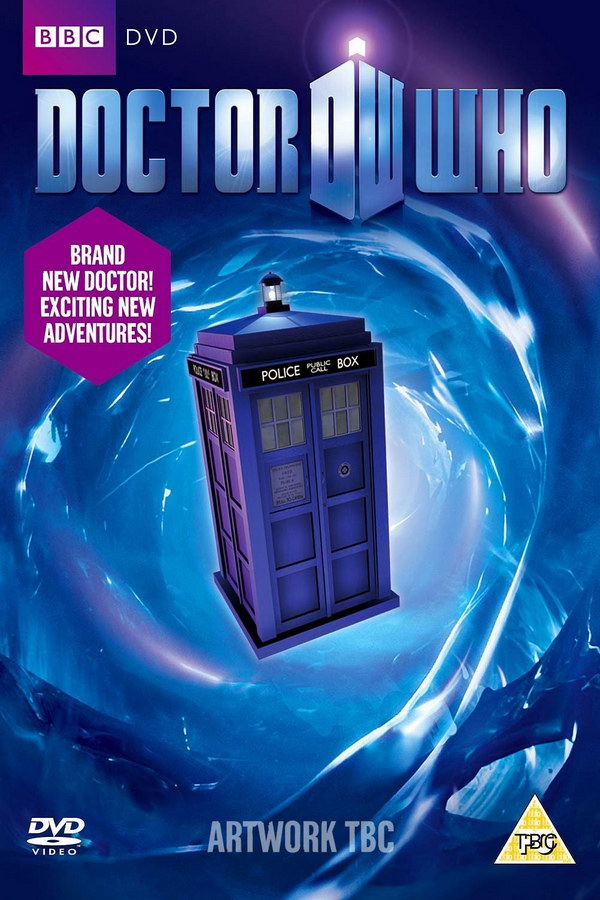
Doctor Who Font
AdventureDoctor Who is a long-running British science fiction television series that follows the adventures of a Time Lord known as the Doctor as he travels through time and space in a sentient spaceship called the TARDIS, with various companions.
The font used in the title card of the TV show resembles a font named Doctor Who, which was created by James Easton. This font comes in uppercase letters, numerals, and a few punctuation marks, and it can be downloaded for free from the Font Used Section.